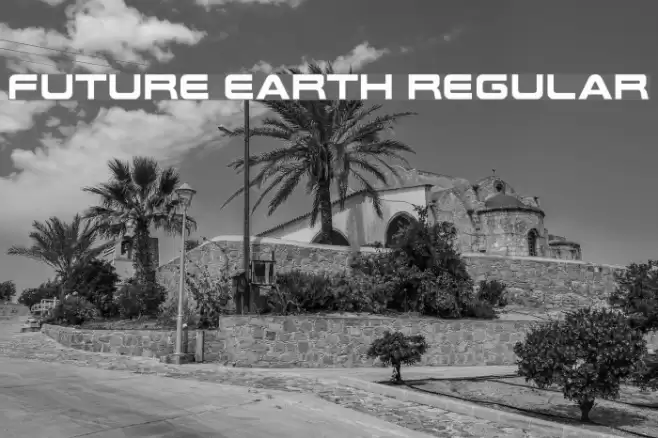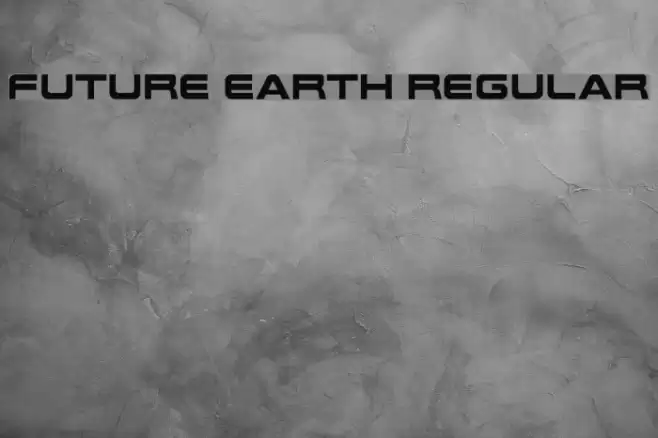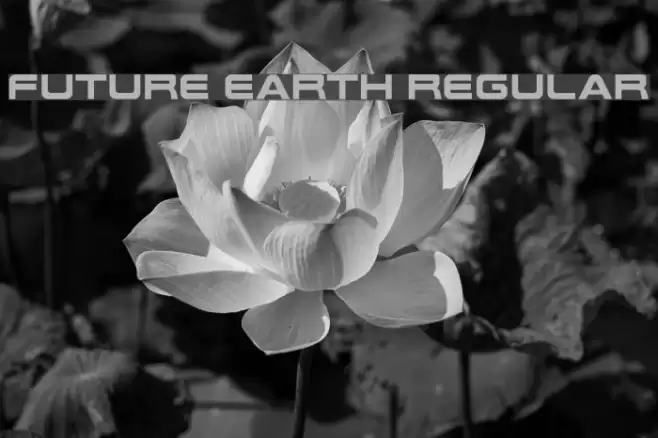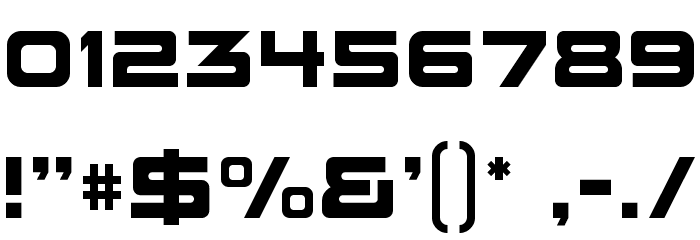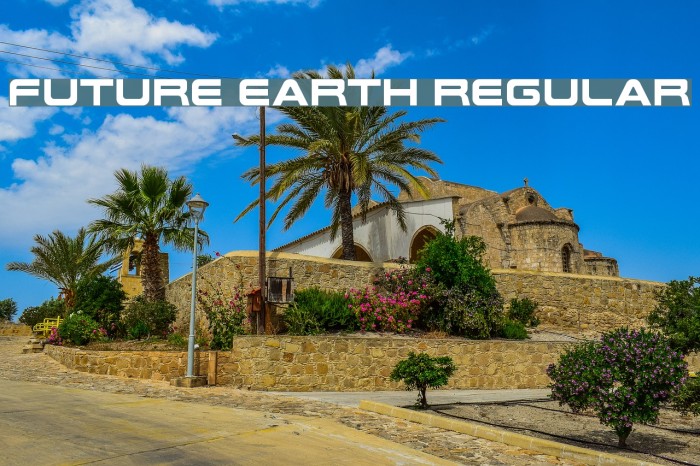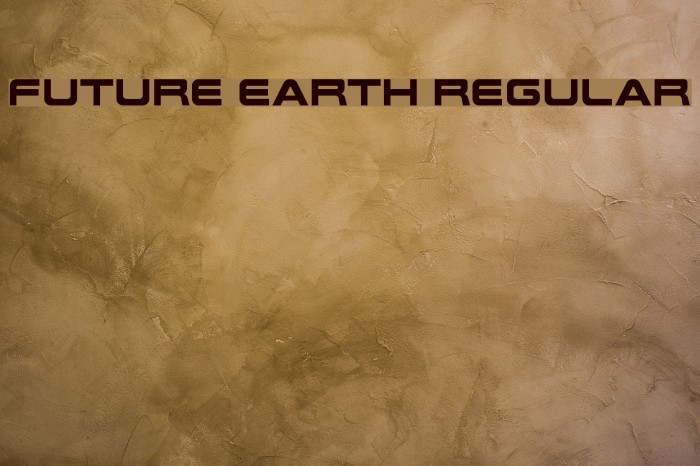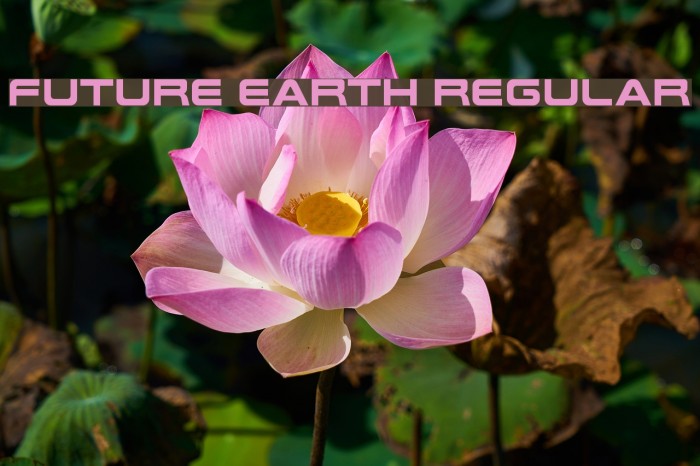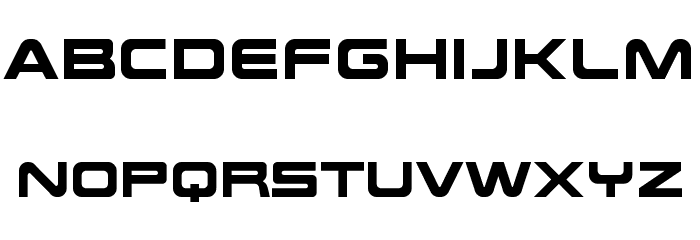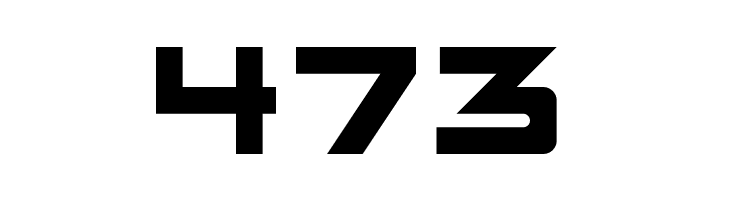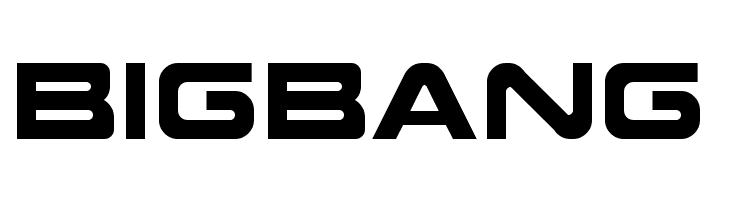
Future Earth Regular Font
Future Earth Regular Description
This font features a futuristic and bold design with geometric elements that create a sense of modernity and innovation. The characters are constructed with sharp angles and clean lines, giving it a sleek and tech-inspired appearance. The uppercase letters are uniform in height, while the lowercase letters maintain a consistent style, enhancing readability. Numbers are distinct and align well with the overall aesthetic, making them suitable for digital displays. Special characters are designed to match the bold and angular theme, ensuring a cohesive look across all glyphs. This font is ideal for projects that require a modern and forward-thinking visual identity.
A futuristic, bold font with geometric and tech-inspired design from Sci-fi fonts.
- Proposed Projects: Ideal for technology branding, sci-fi movie posters, video game interfaces, and digital product packaging.